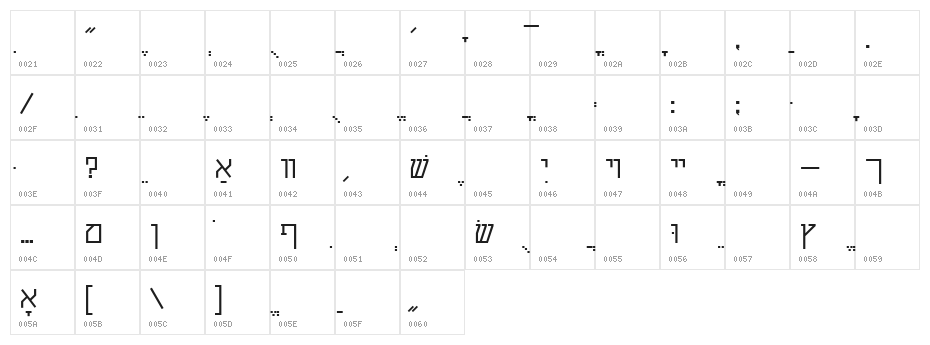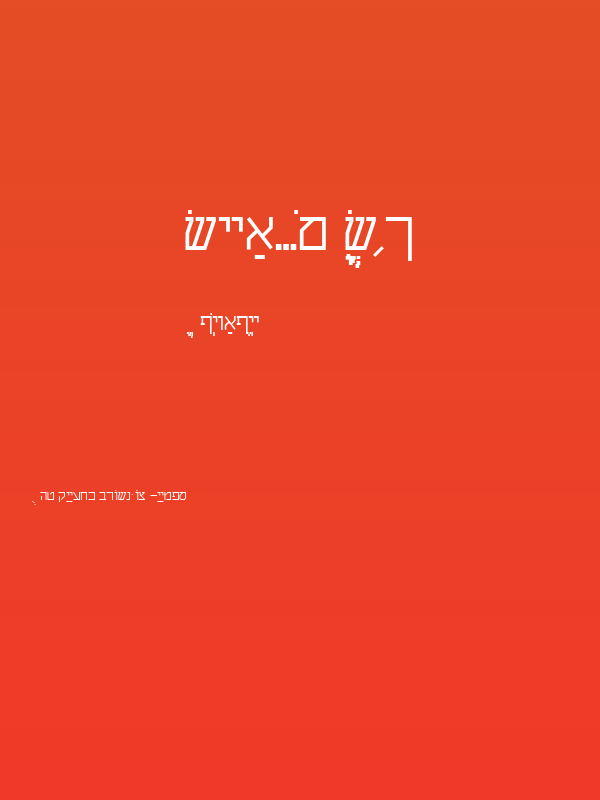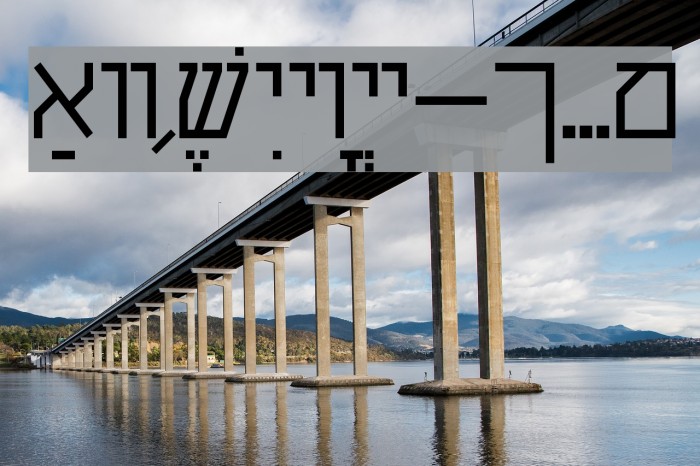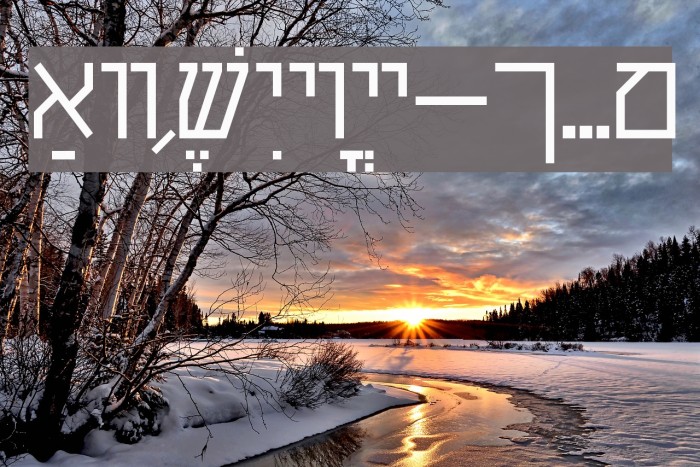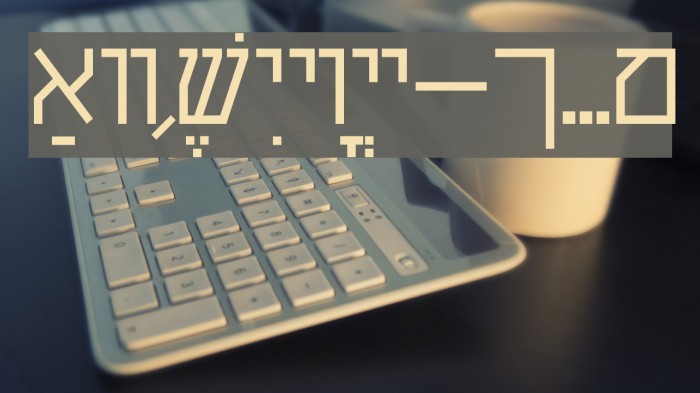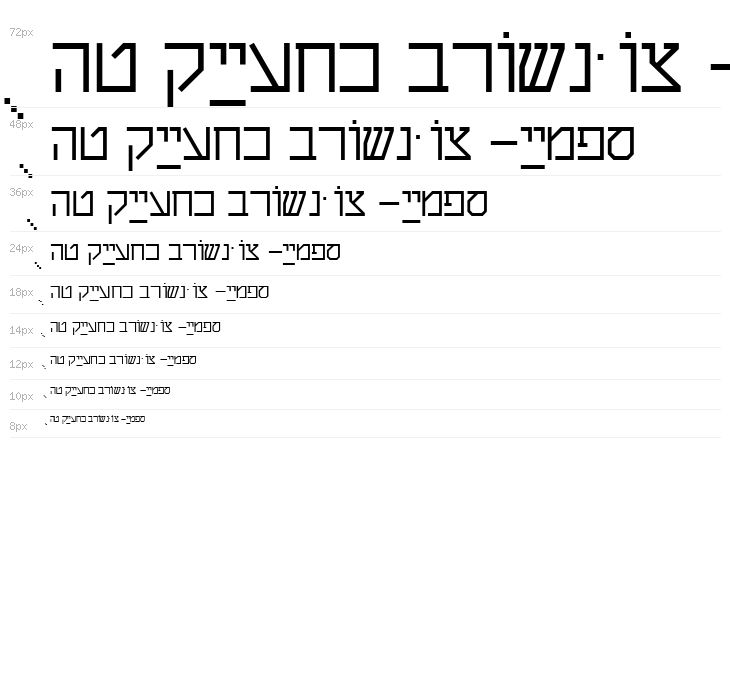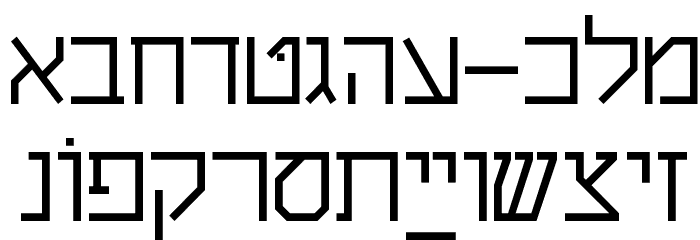
Shalom Stick Font
Shalom Stick Description
This font features a geometric and structured design, characterized by its blocky and angular letterforms. It exhibits a modern and minimalist aesthetic, with consistent stroke widths and a uniform appearance. The characters are well-defined and maintain a strong presence, making it suitable for impactful visual communication. The font's style is reminiscent of digital or pixelated text, offering a contemporary and tech-inspired look. Its clean lines and straightforward design make it versatile for various applications, particularly in settings where clarity and precision are paramount.